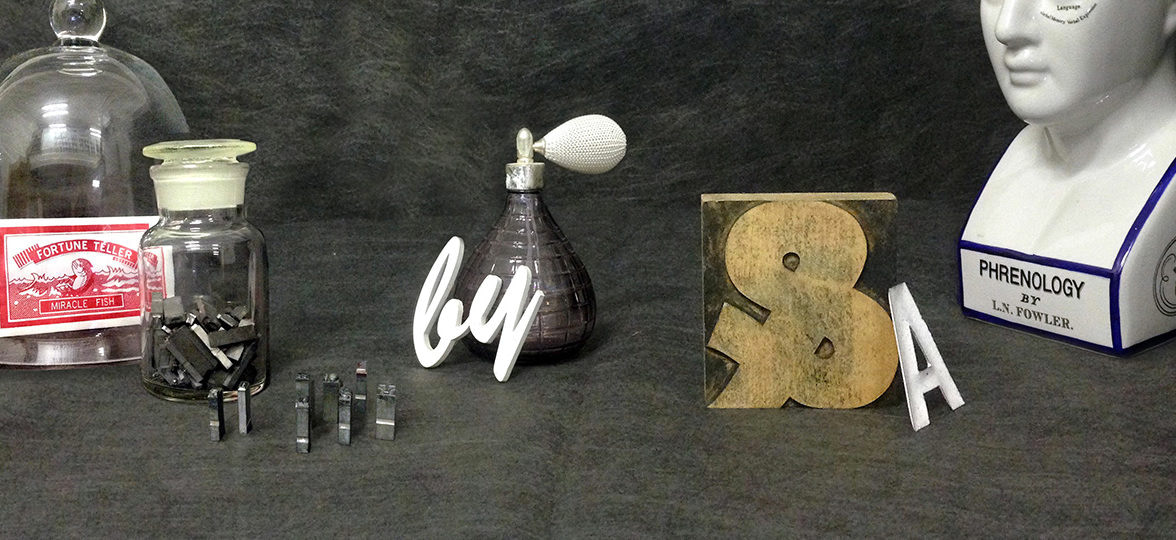
What fonts reveal about you: Type Tasting
MOO caught up with Sarah Hyndman of Type Tasting to uncover the astonishing power of typography — and to find out how it can express the personality behind your brand.
Hidden in plain sight, typography is all around us — and for brands, using the right font is a crucial way of communicating.
Typefaces are big part of our everyday life — but more often than not, they linger on the periphery, influencing our choices without demanding our attention.
And according to Sarah Hyndman, founder of type studio Type Tasting, it’s this subtlety which makes typography such a potent way of communicating. MOO caught up with her to uncover the astonishing power of typography — and to find out how it can express the personality behind your brand.
Passing on a passion
As a child, Sarah was struck by, and grew to love, the colourful typography on her favorite candy packages. But despite her appreciation blossoming at such a young age, after 10 years running her own graphic design business, Sarah found herself falling out of love with typography.
“I got to a point where I was working really long hours, and a lot of that time I wasn’t doing the design work — I was just managing the accounts,” she says. “So I took a step back to do something that would help me fall back in love with design.
“I wanted to bring back the excitement and joy of my childhood, and introduce my love of typography to an audience beyond the design studio. Type isn’t all high-brow — it’s also enveloped in pop culture experiences.” And so, five years ago, Sarah launched Type Tasting.
With a laser-focus on typography, Type Tasting offers events, talks and workshops designed to teach designers and the design-curious alike about the psychology of type — like wine tasting, but for type, Sarah explains.
She’s also published a book, Why Fonts Matter, which looks at how fonts influence us and the subtle power they wield. They can even, Sarah says, alter the taste of our food.
“If a menu or recipe is written in a Serif typeface, the chef is perceived as more skilful, and the recipe is assumed to taste better,” Sarah says. “The point of Type Tasting is to look at type in this way, from the consumer’s point of view.”
Uncovering a hidden world
Type Tasting’s hands-on, experiential events are designed to make the fascinating facets of a world Sarah describes as being “hidden in plain sight” accessible to all.
Events on offer include Type Safari, in which attendees are taken through the history of type to show why different typefaces are relevant.
Type & Perception includes ‘typography karaoke’, which demonstrates “how type can be your voice,” while Font Fortunes reveals what your preferred typefaces say about your personality.
The response to these events has been hugely positive. “People are surprised by the sessions, and there’s lots of laughter,” Sarah says. “People who didn’t think they knew anything about type discover they’re already experts at reading these visual codes.”
The subtle voice of type
Sarah understands better than most the effect typography can have on our perceptions, and why that makes it a powerful brand-building tool.
“Type is our voice, so the typeface you use very much reflects your personality,” she explains. “It works as a first impression, in a very similar way to our clothes. For example, if I set something in a serif typeface, it’s the equivalent of me wearing my glasses — it’s been shown that people interpret words in serif as well researched and more intellectual.”
Every detail of Type Tasting, down to Sarah’s Business Cards, are informed by her passion for typography, as well as for design.
“I chose Luxe for my Business Cards, partly because of the strip of colour around the seam, but also because they’re heavy,” she says. “The heavier the object, the more gravitas it has, and the more important it feels when you hold it.
“My Business Cards also have a game built into them that explains what I do — effectively my elevator pitch — so they become a talking point. Somebody recently said that a Business Card designer is actually creating ‘really cool first impressions,’ so that’s what I strived to do.”
Typography that tells a story
So, what advice would Sarah offer to a small business or brand looking to revamp their identity?
“Think about your brand and the story you want to tell about it to connect with your customers in an authentic and meaningful way,” Sarah advises. “Your branding should reflect your personality or attitude — serious and well informed, open and modern, or relaxed and casual.
“It could evoke a story — for example, the Cooper Black font says ‘70s nostalgia and sunshine’, while Benguiat says ‘80s authentic’ (think Stranger Things). Or you can use it to communicate with a particular tribe, using typefaces and tone of voice to connect with your target audience.”
Sarah offers Coca Cola and Pepsi as strong examples of typefaces embodying a brand’s values.
“Coke’s casual script reflects its 50s heritage. It’s an everyman drink, evoking baseball and Americana. Meanwhile, Pepsi’s logo reflects that fashion of each era, and is more about pop culture and change.”
Ultimately, if Type Tasting can give people an insight into and appreciation for the art and psychology of typography, Sarah considers her job done.
“Typography is one of the most important ways to make a first impression and to communicate your story,” Sarah says. “Isolate just the type styles of a brand, and they communicate a huge amount.
“It’s not about the kerning — it’s about the impression it makes on our subconscious.”